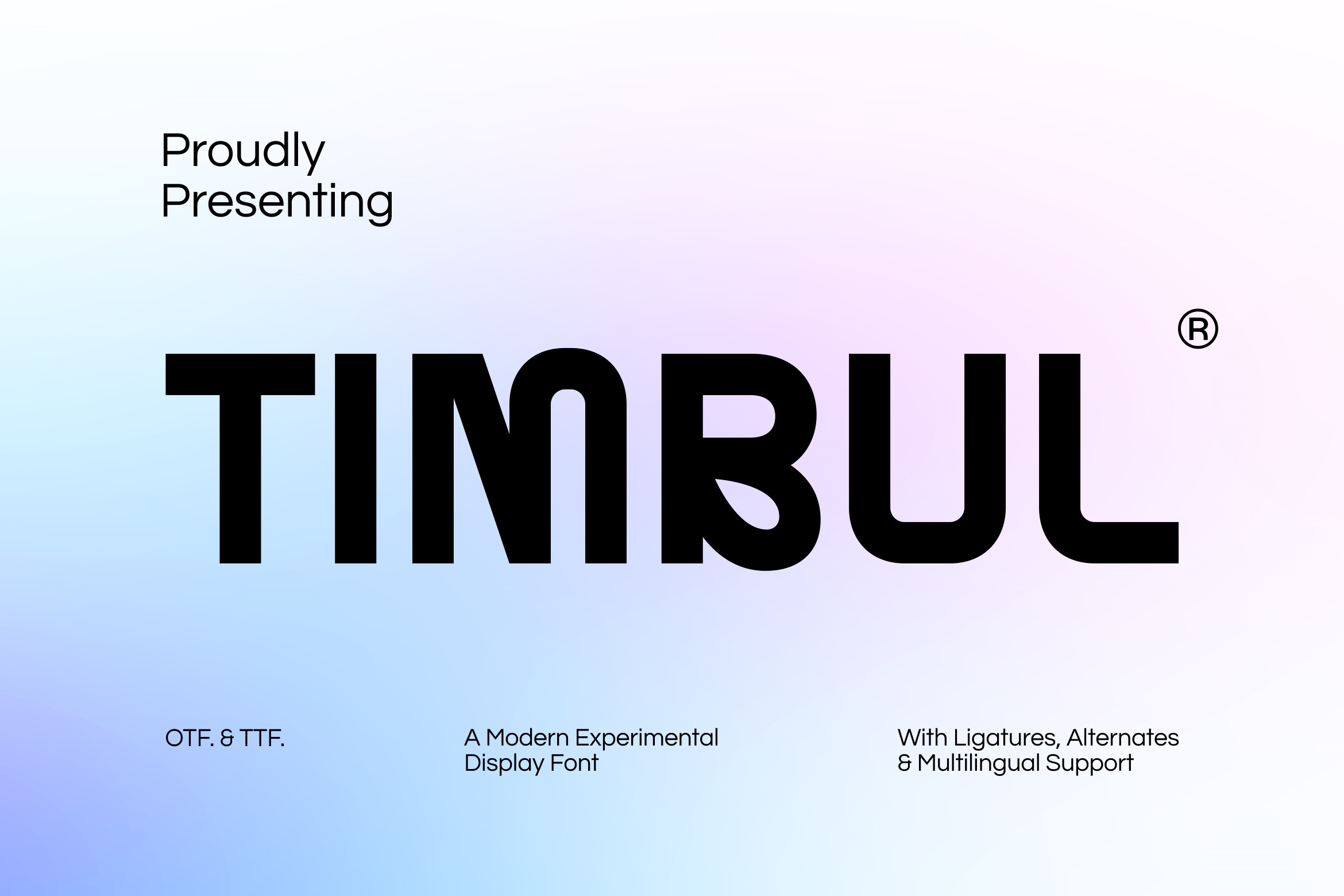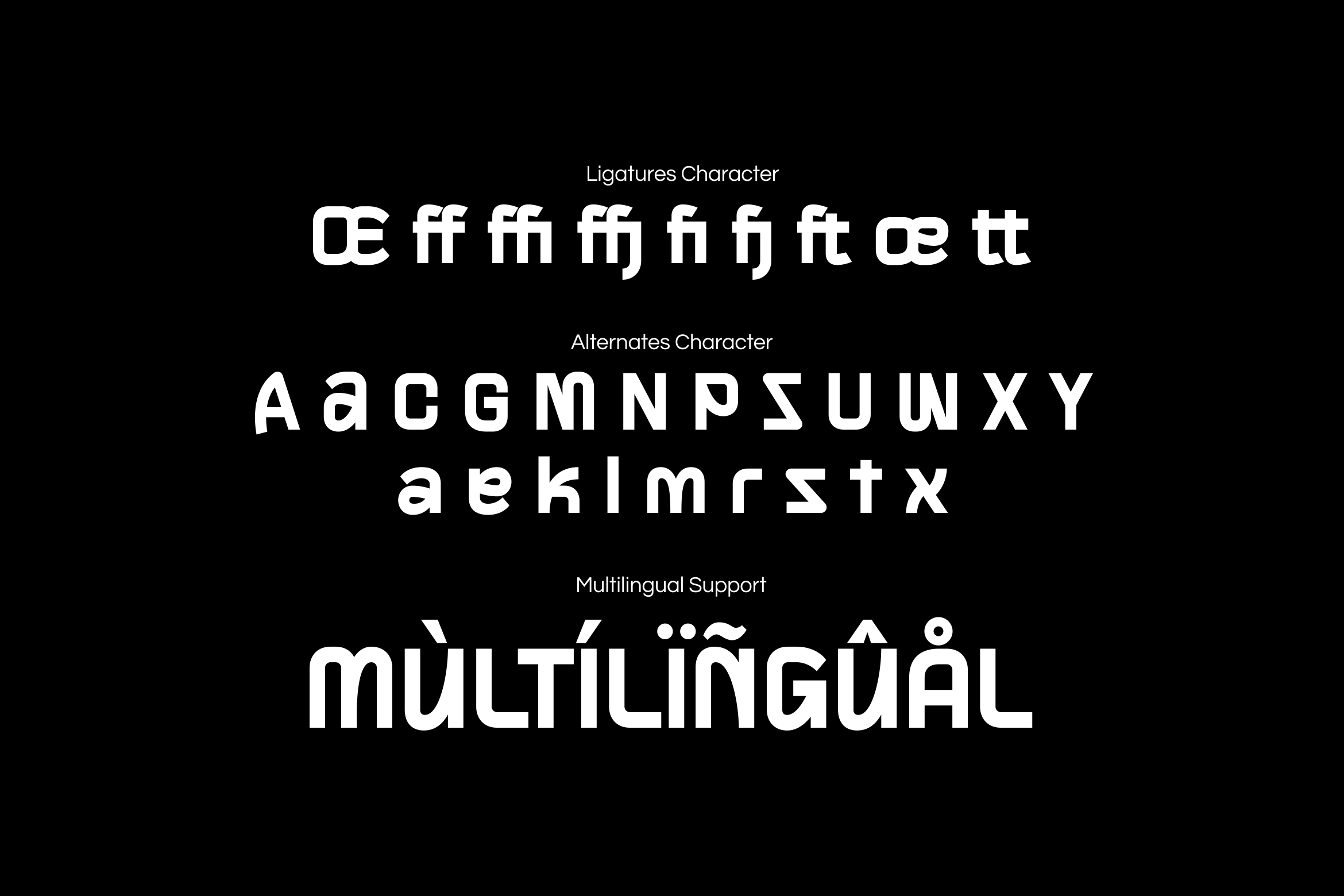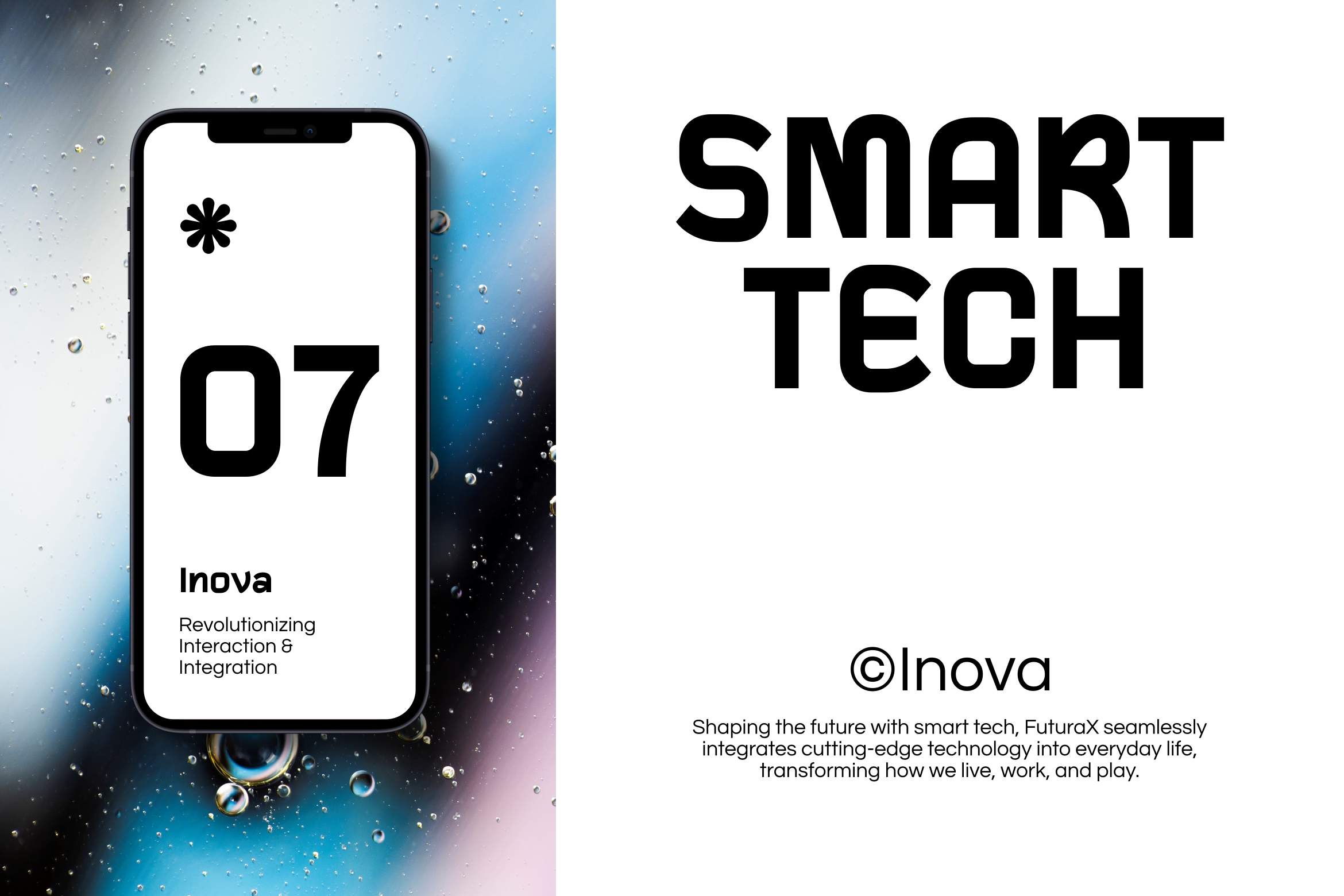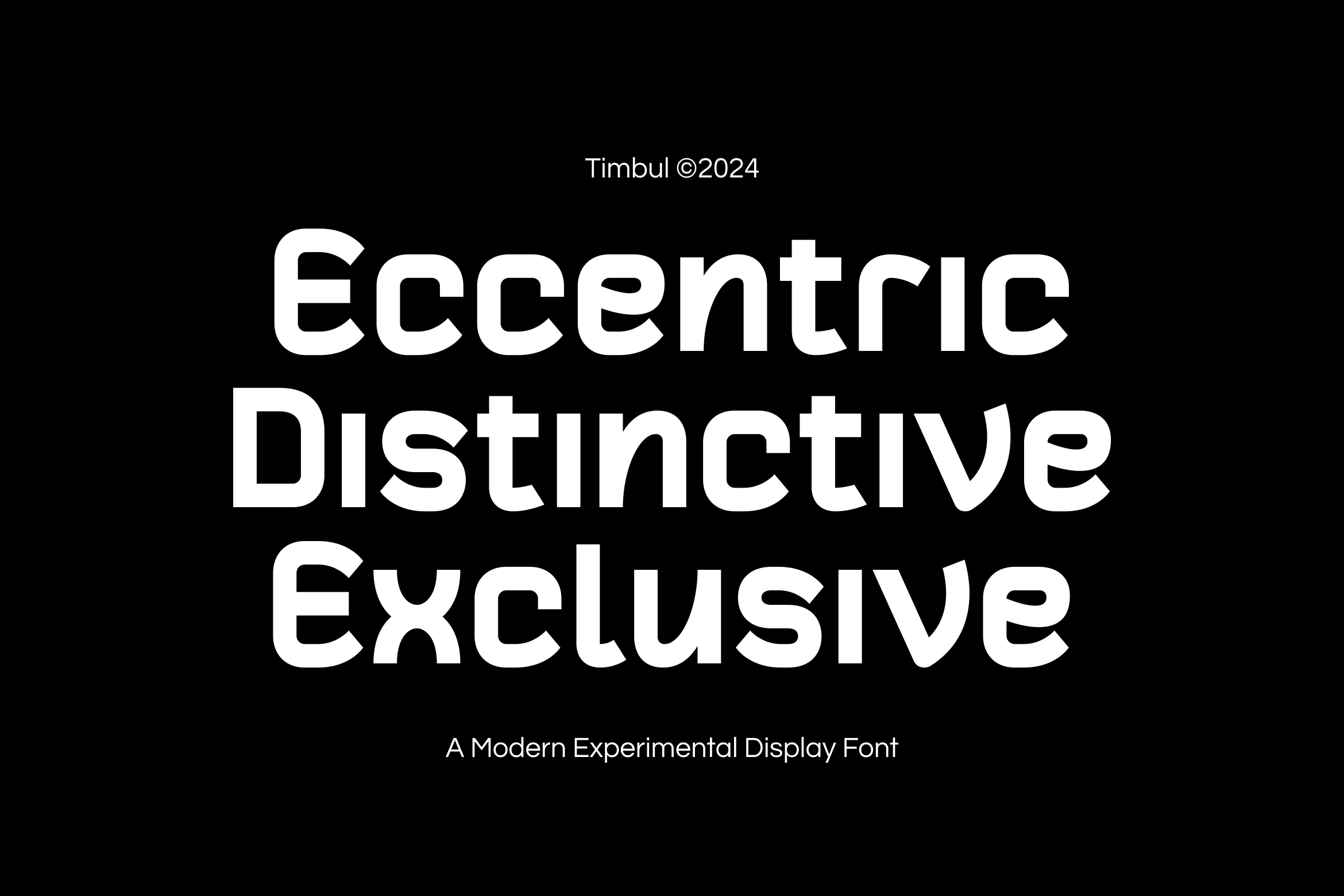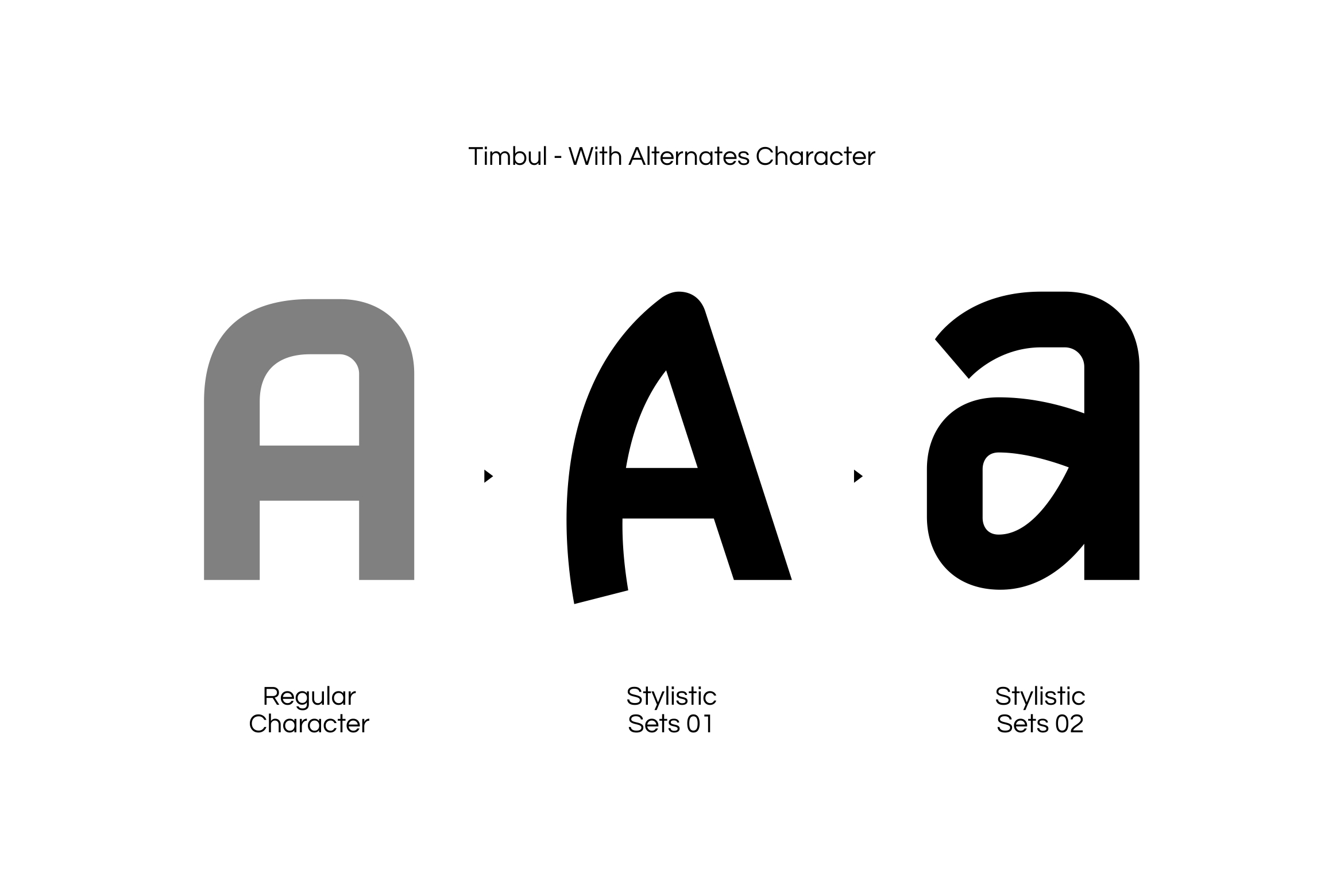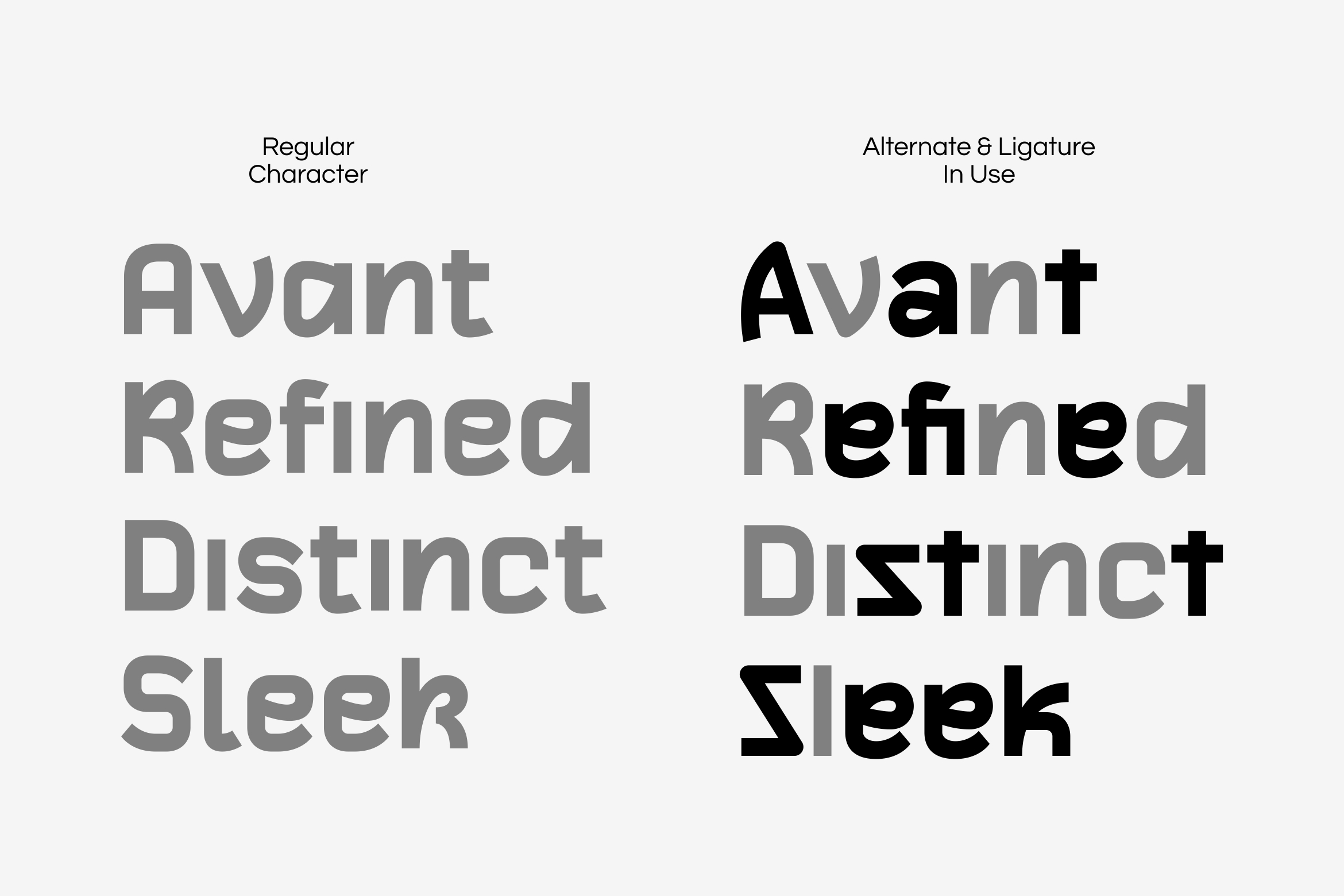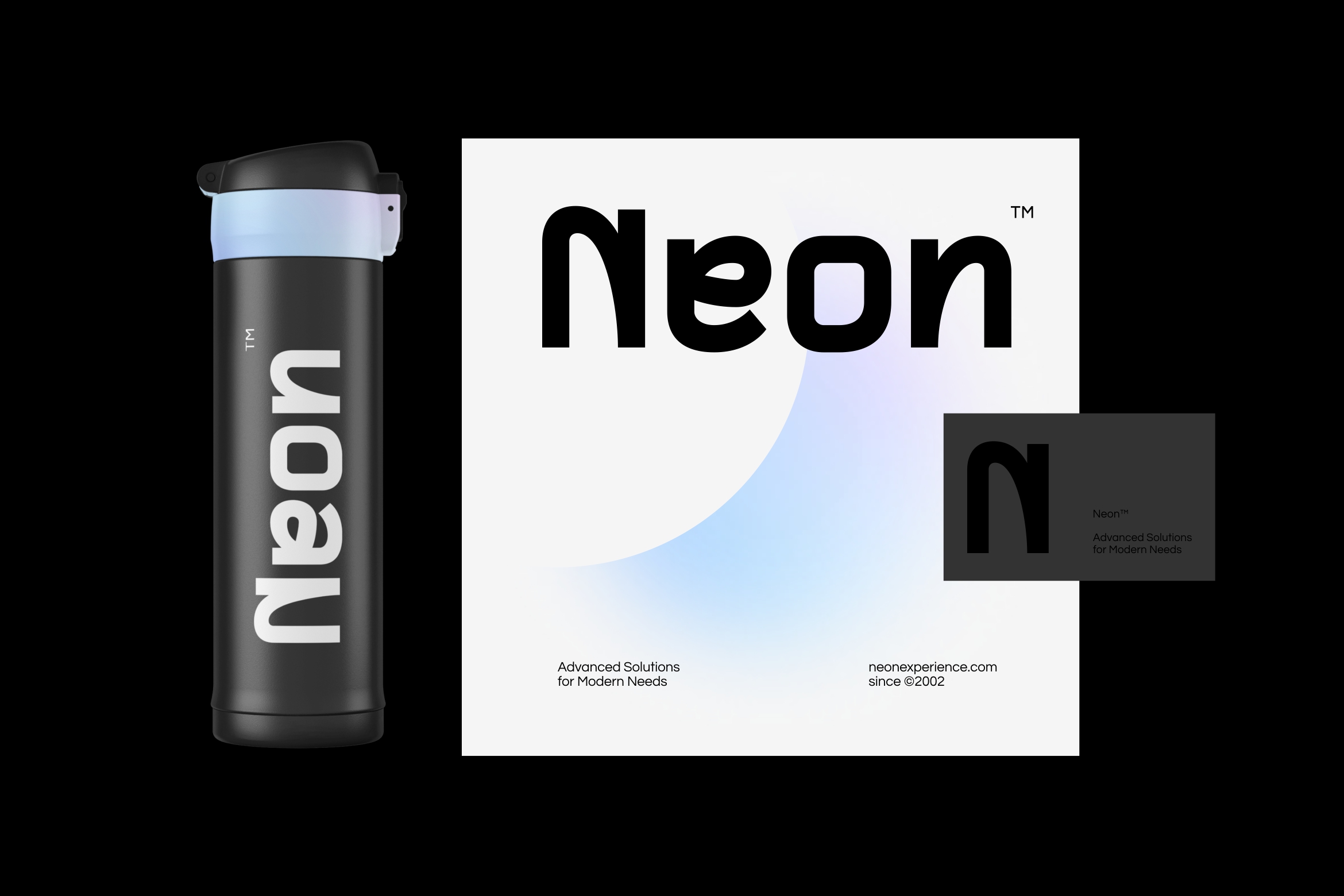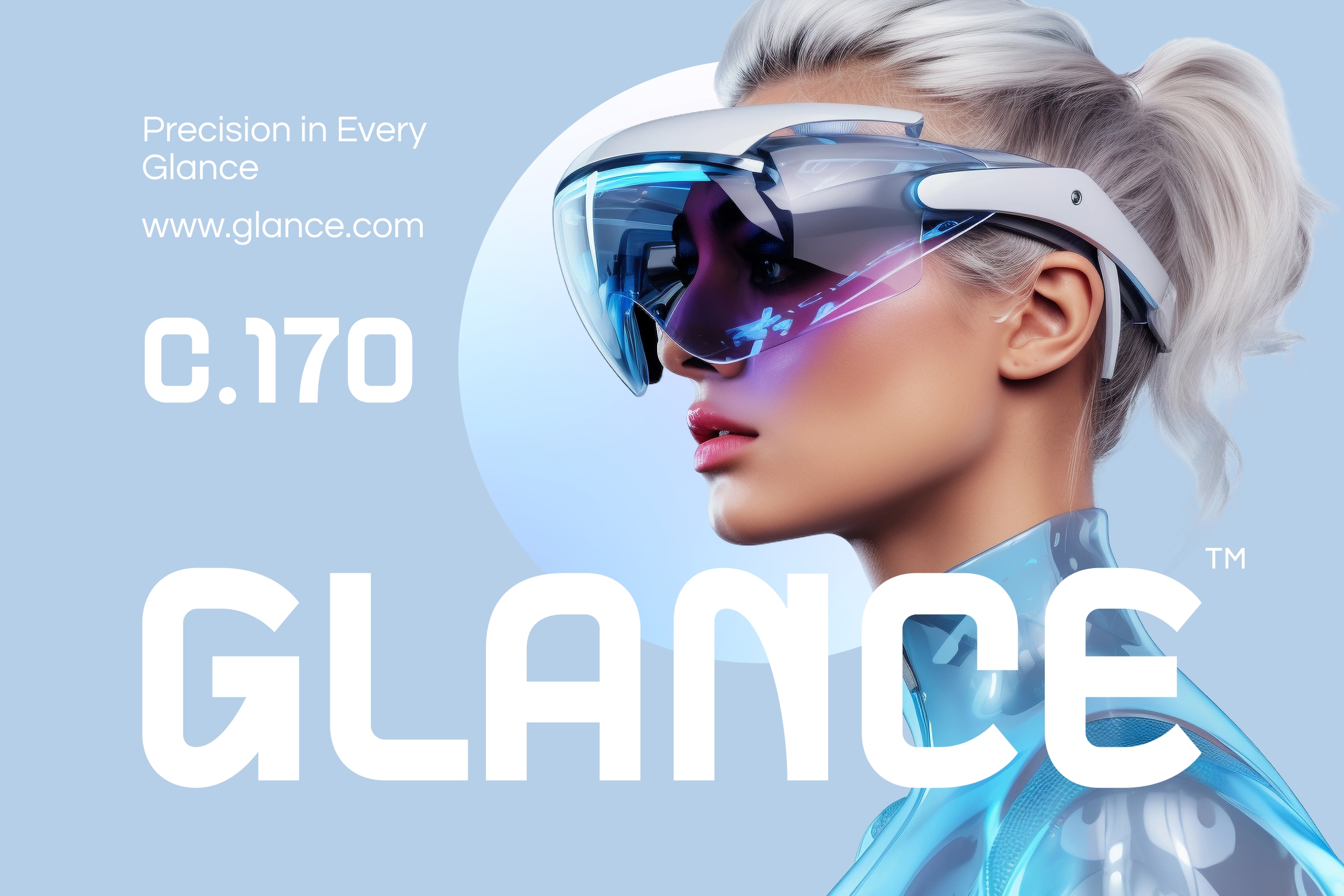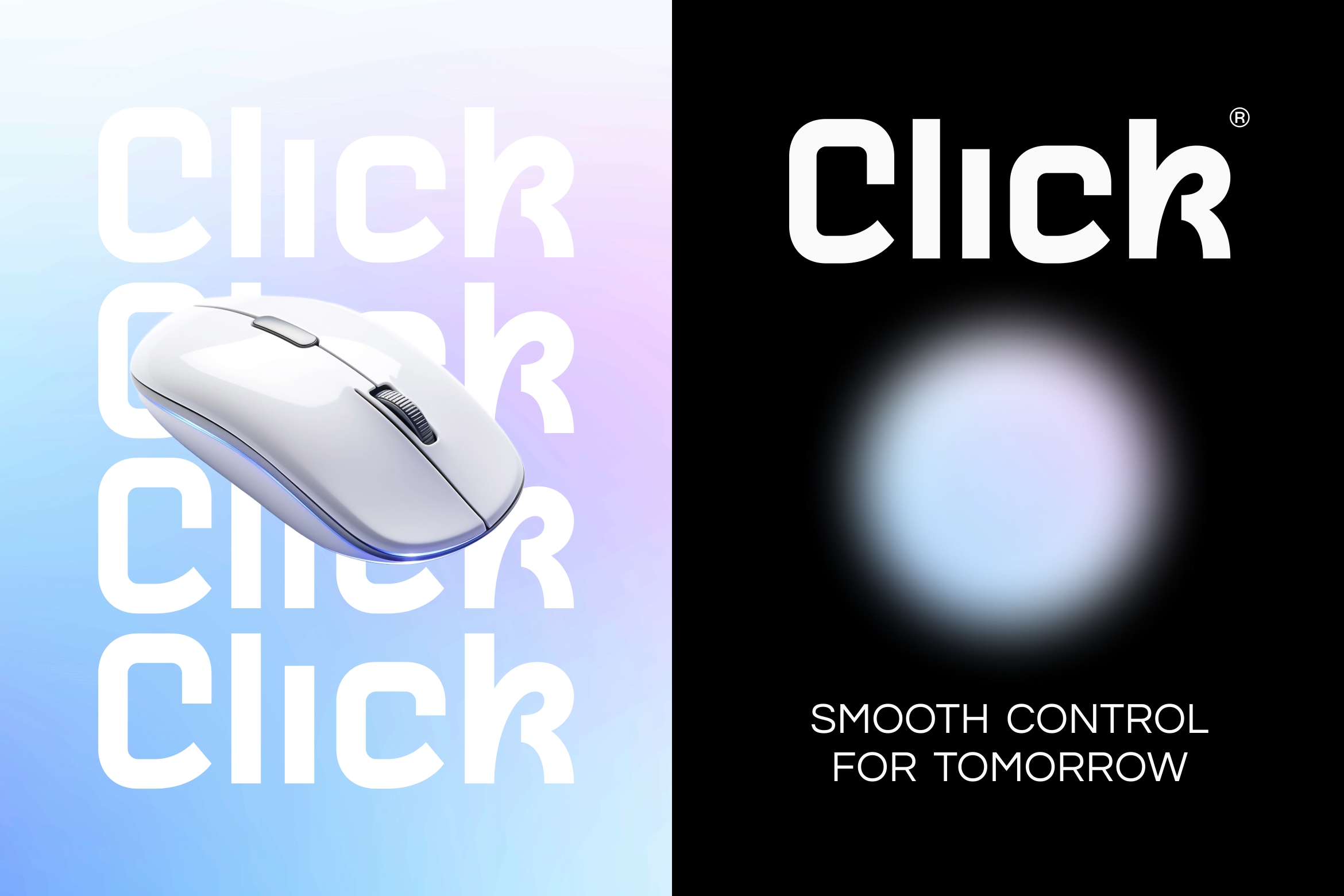
Timbul is a modern experimental display typeface that breaks conventional boundaries with its unique ligatures, stylistic alternates, and geometric construction. Designed to stand out, Timbul features strong curves, bold terminals, and playful letterforms that make it perfect for forward-looking branding, editorial headlines, smart product packaging, or cutting-edge tech visuals. Each character carries a distinctive voice, offering a futuristic and intelligent vibe.
With wide support for multilingual characters and full alternate sets, Timbul offers vast creative freedom. Whether used in branding for digital innovation, wearable technology, or avant-garde fashion, this font makes a bold visual statement. It’s a perfect choice for designers seeking to create impactful, memorable compositions with a sleek yet eccentric tone.
Timbul